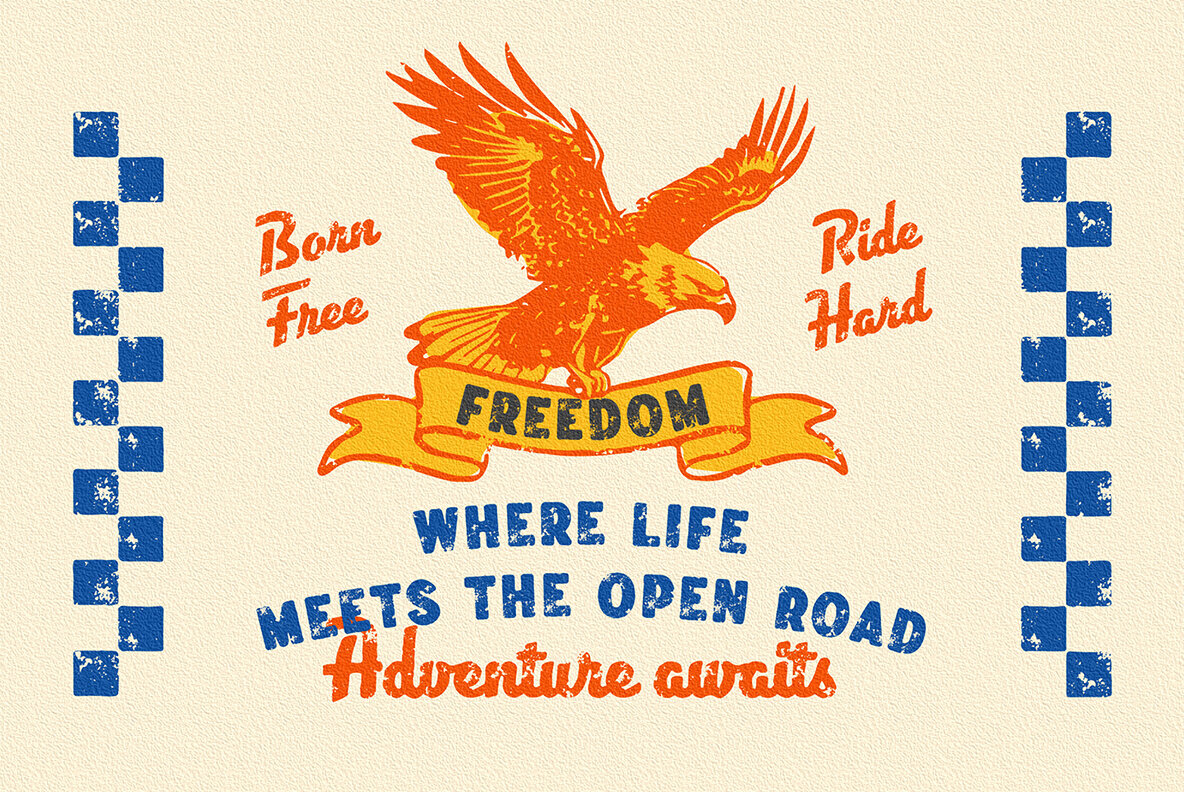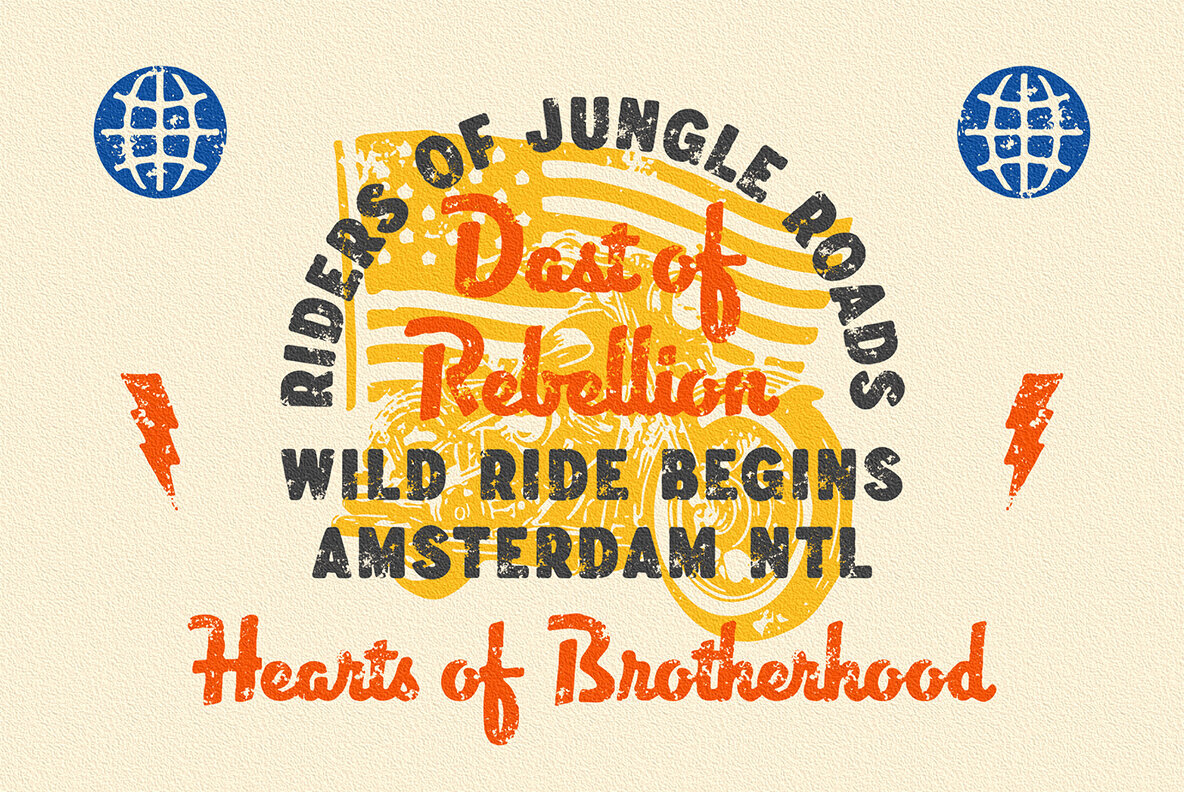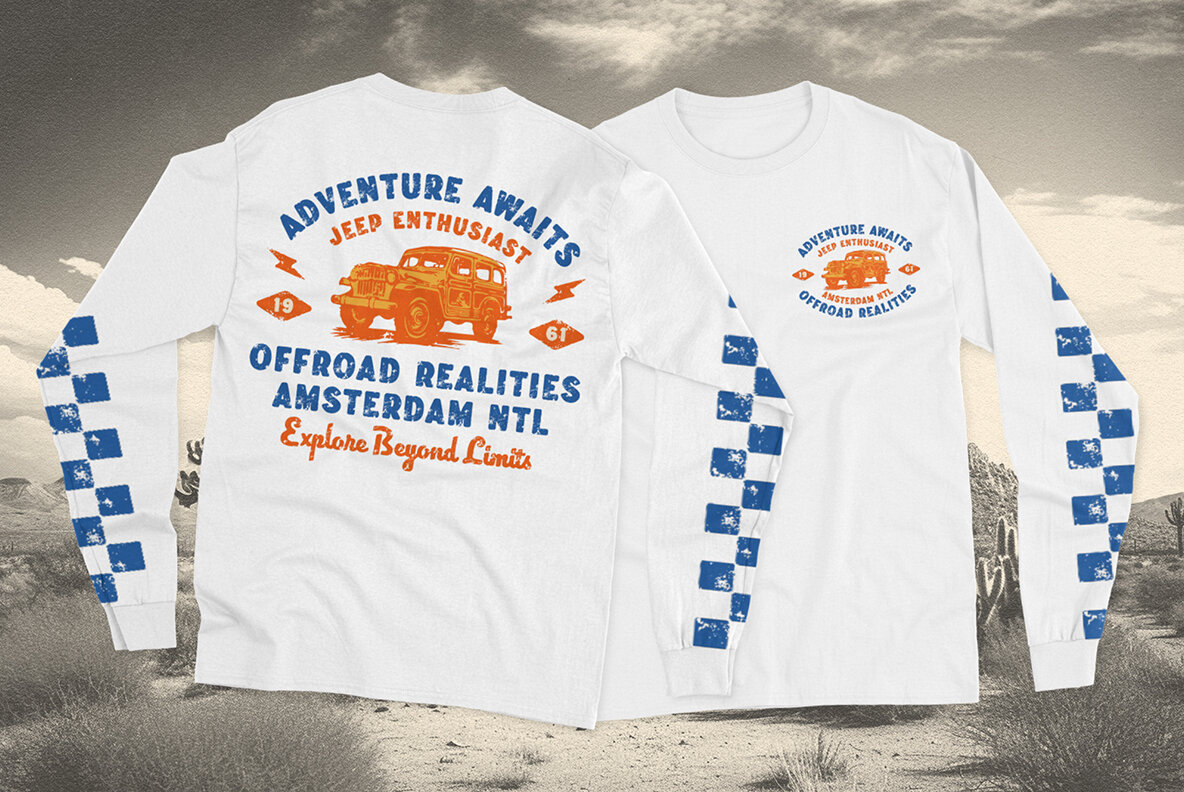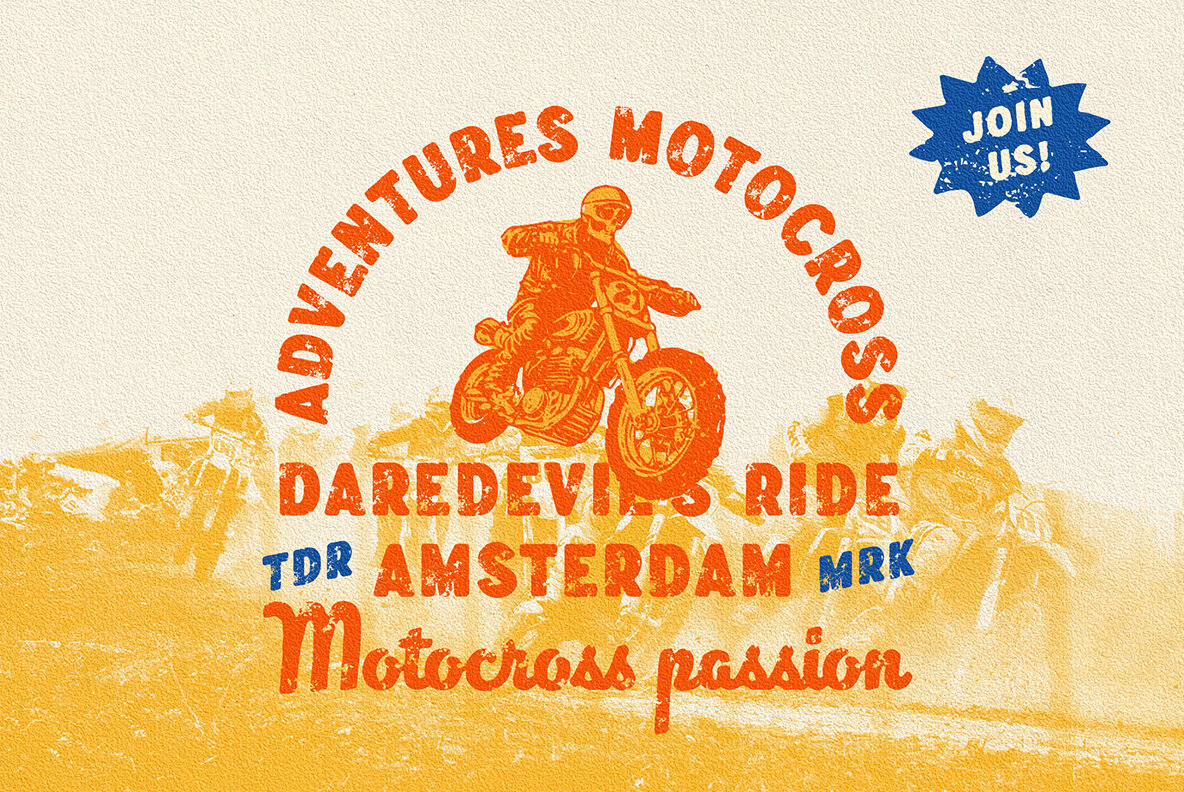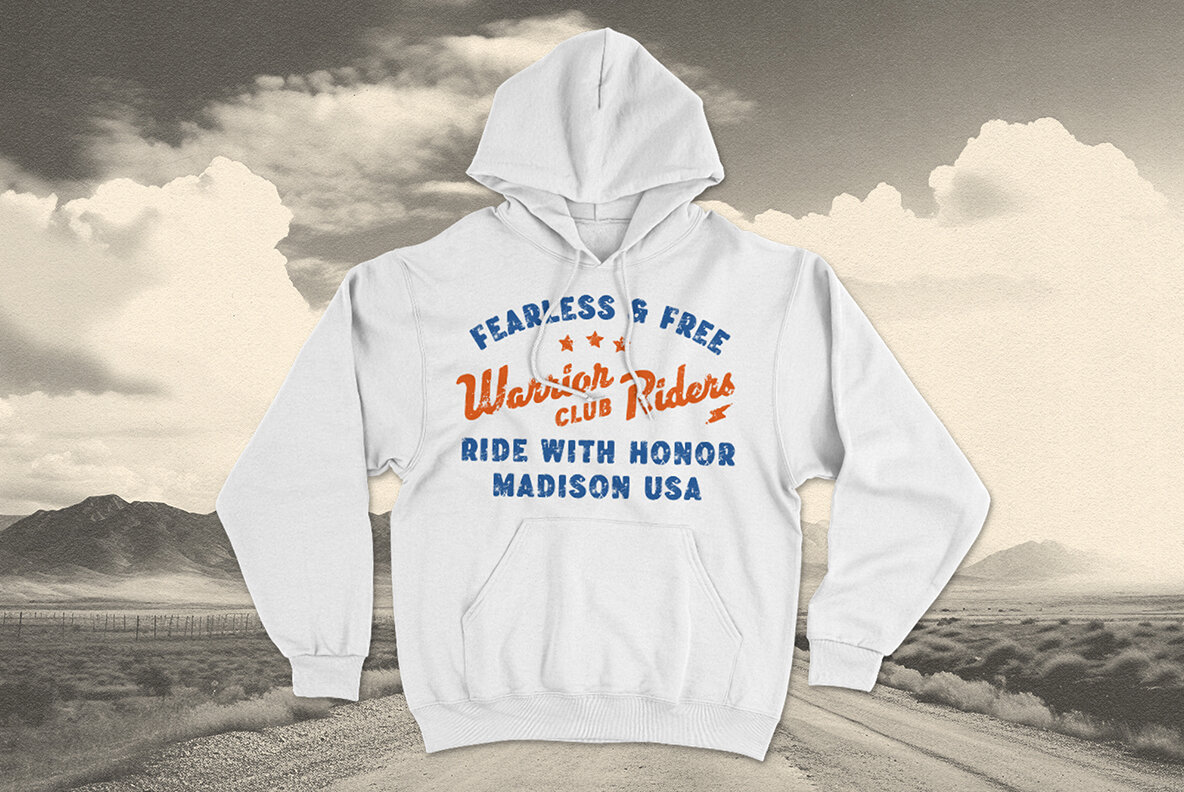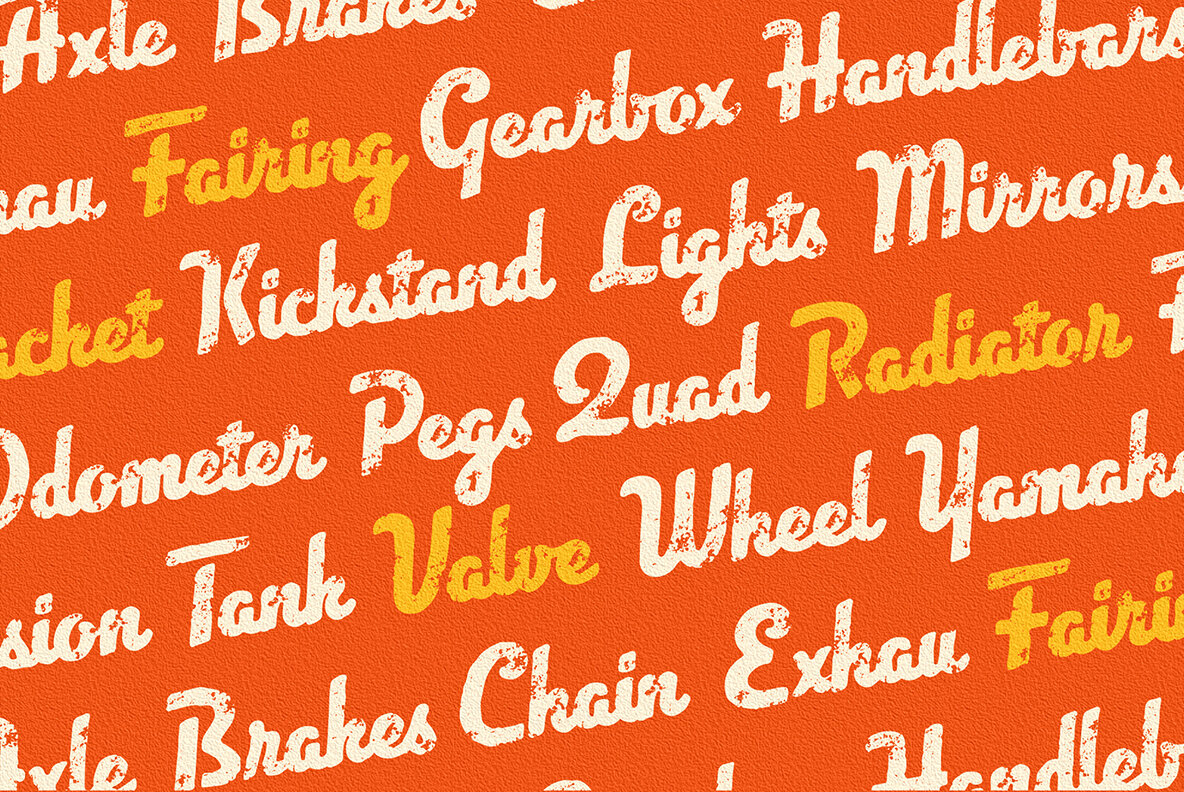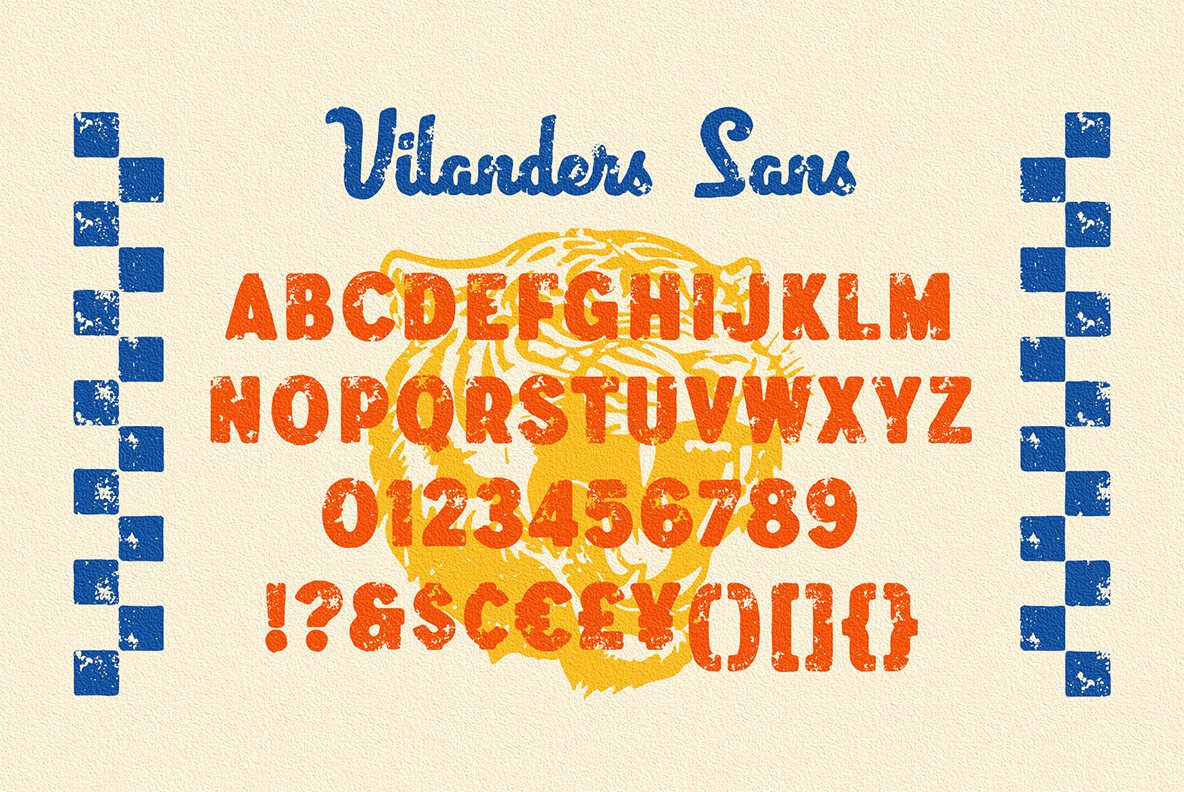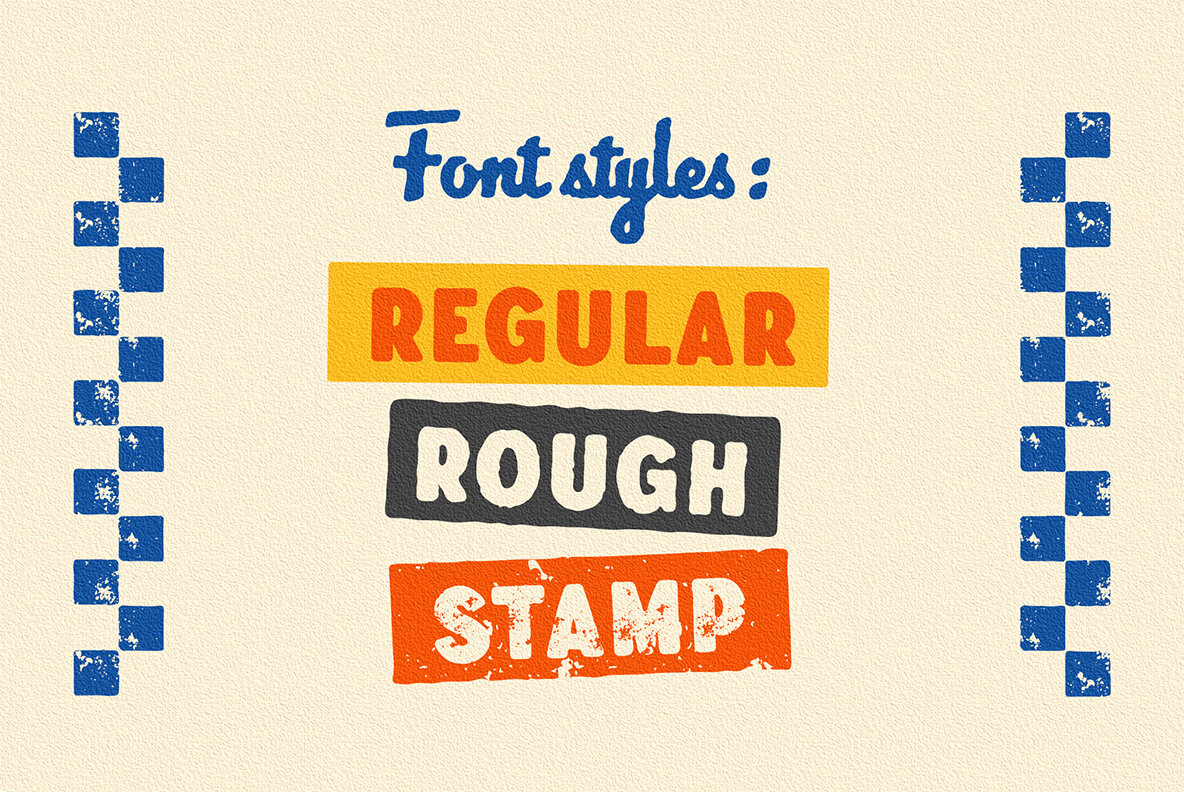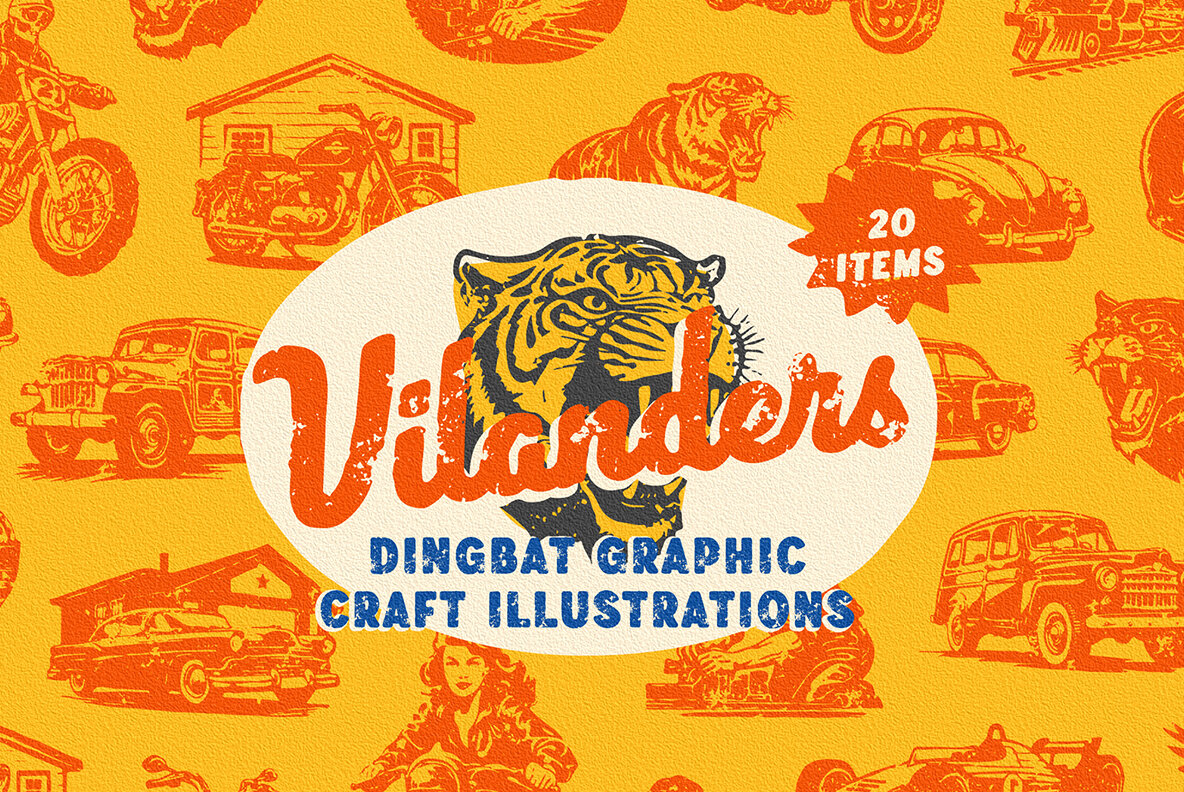
Vilanders Font
Vilanders Sans
Vilanders Sans Rough
Vilanders Sans Stamp
Vilanders Script
Vilanders Script Rough
Vilanders Script Stamp
Vilanders Dingbat
Introducing Vilanders, a must-have hand-drawn pair script and san serif font collection designed exclusively for graphic designers. With three unique style fonts (regular, rough, and stamp) and an additional 20 hand-drawn motorcycle illustrations, this versatile package is perfect for logo creation, branding, apparel design, and more. Infuse your designs with vintage and stamp font flair and explore the possibilities with Vilanders.